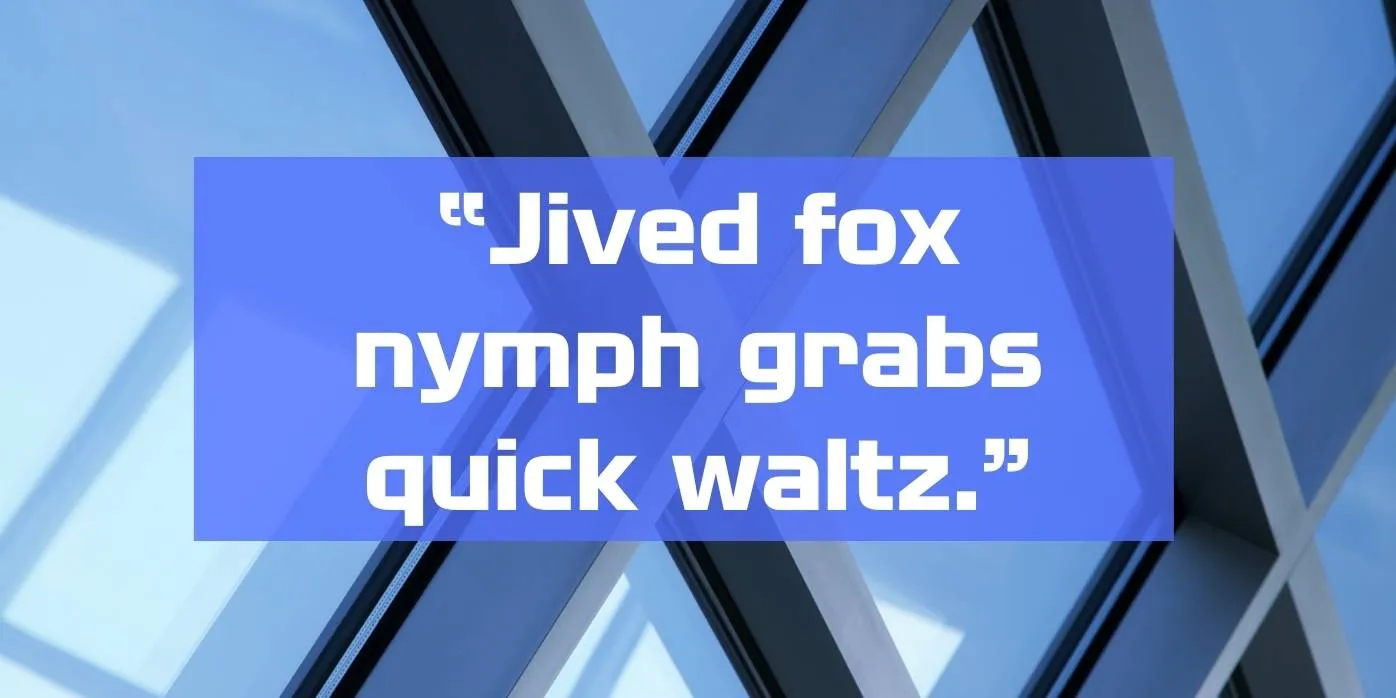
Nissan Font
Today, we introduce a new font that was famous the name of Nissan Font. It was created by the Japanese car manufacturer Nissan in cooperation with OPTIFONT. It belongs to the Sans-Serif typeface. This new typeface is based on Futura but has been tailored to meet the specific needs of the brand, including a slightly wider letter spacing and distinctive curves.
It was used for the logo of famous brands. It is popular for its copy and paste function in the industry. Sesame Street Font is closest to this amazing font. It also includes more than 247 unique and attractive Glyphs and icons.
The Latin typeface has a modern and sleek design that is perfect for headlines, posters, and other branding materials. Its generator tool allows you to create many classic designs quickly.